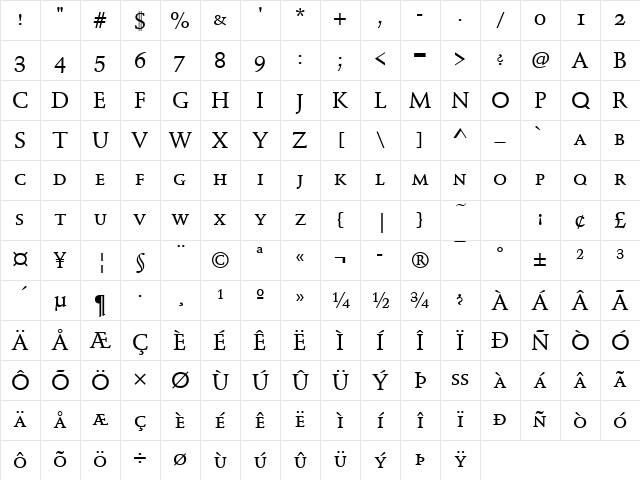
SchneidlerMedSCTMed Regular
Design Context for SchneidlerMedSCTMed
SchneidlerMedSCTMed is a composed and adaptable typeface that performs quietly and consistently across a wide range of design contexts.
Pro Tip: Use SchneidlerMedSCTMed in both headline and body roles to test its range before committing to a single application.